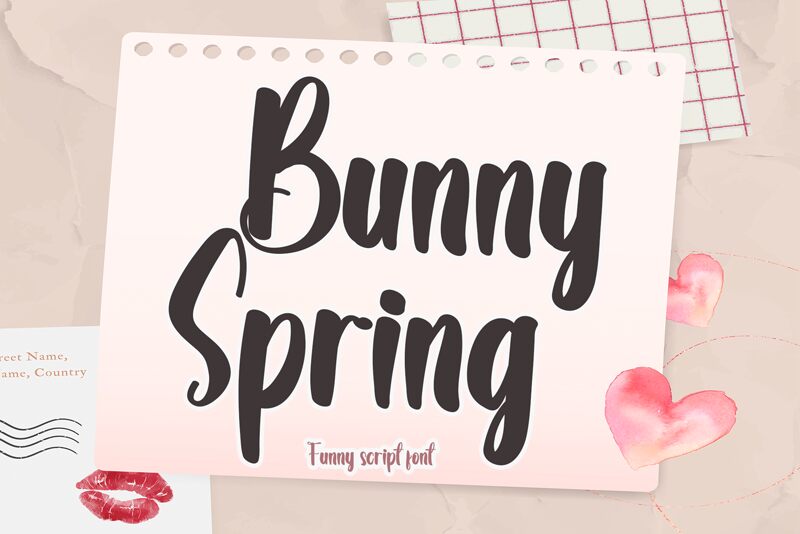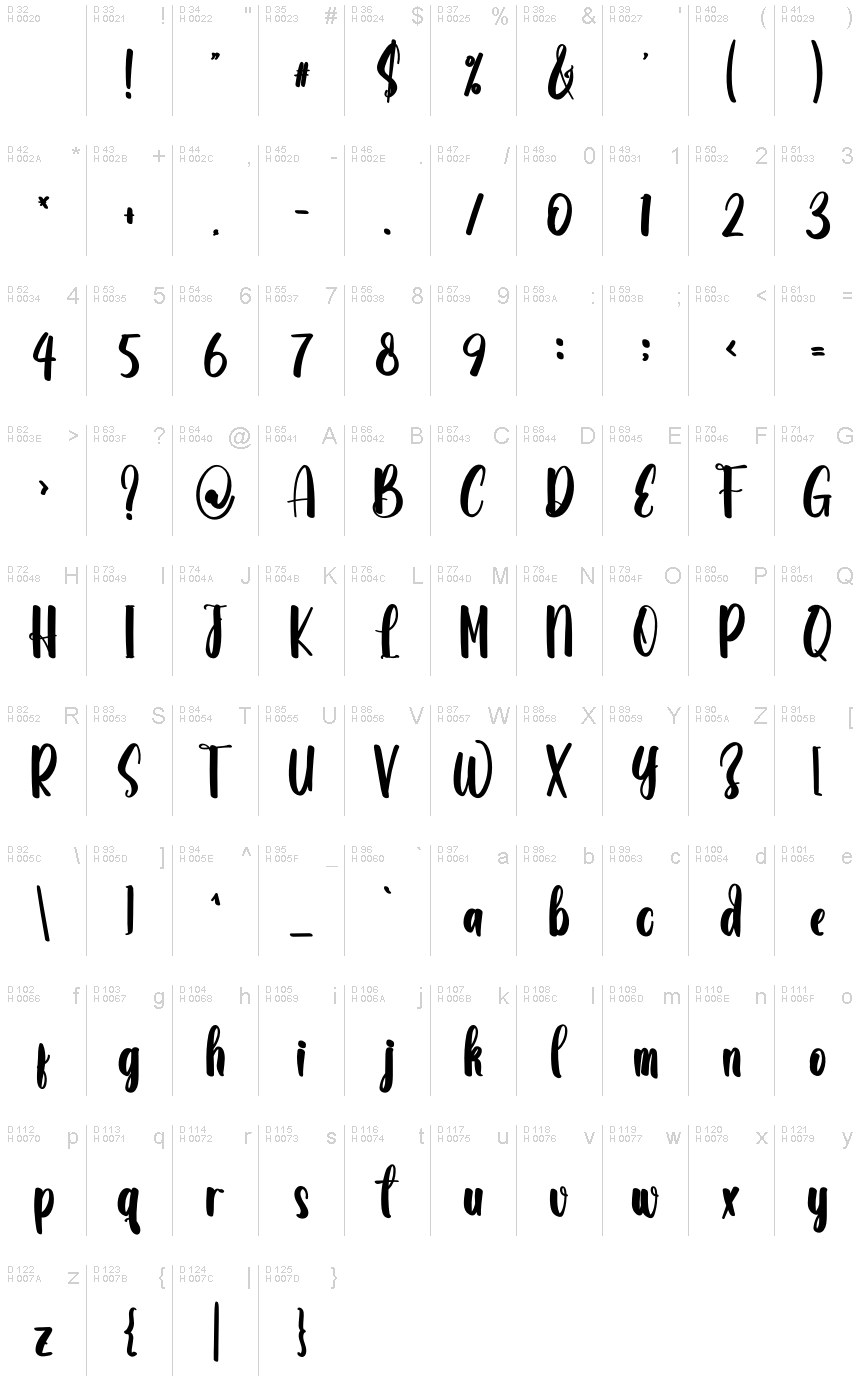
Bunny Spring
Bunny Spring, a captivating creation by Creatype Designer, exudes a classy calligraphic influence while maintaining a contemporary and fresh aesthetic. This condensed handwritten font's alluring curves and dynamic strokes evoke a sense of elegance and sophistication, making it a standout choice for designers seeking a versatile typographic solution.
The font's versatility allows it to seamlessly adapt to a wide range of creative endeavors, from eye-catching letterheads and impactful titles to refined stationery designs. Its unique character and versatility make Bunny Spring a compelling option for those seeking to elevate their visual communication with a touch of elegance and modernity.